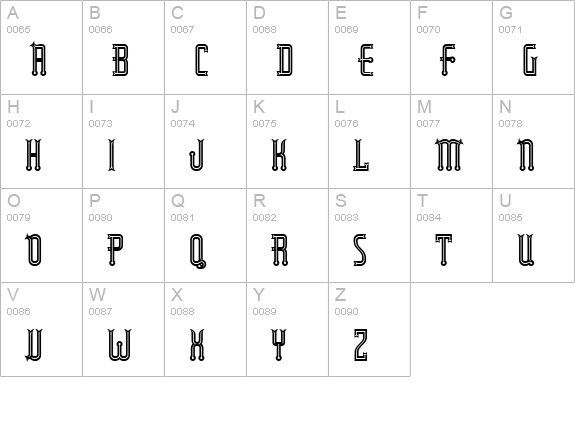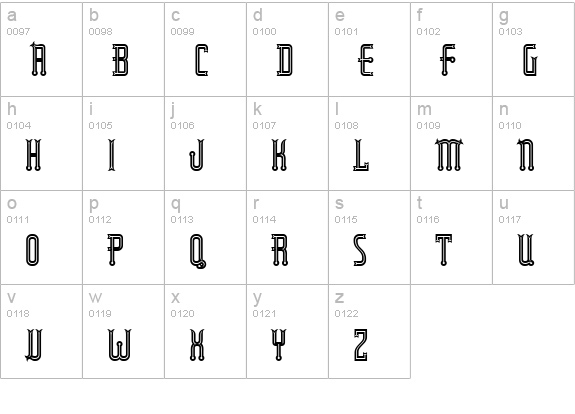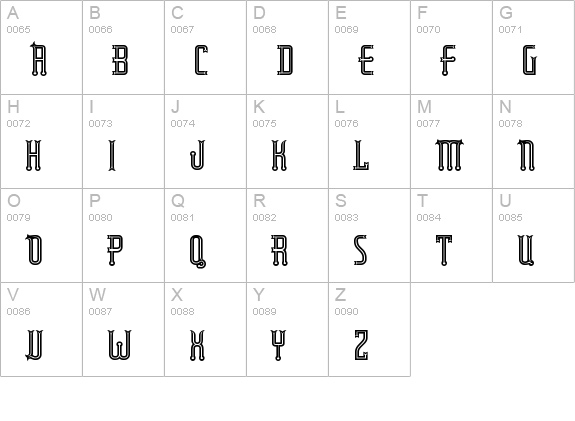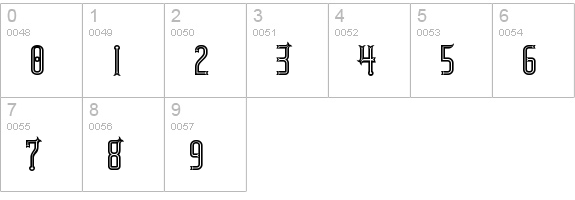
RubaiyatEngraved Font Details
RubaiyatEngraved font is a beautifully intricate and elegant typeface that exudes sophistication and charm. With its decorative engravings and intricate details, this font is perfect for adding a touch of luxury to your designs. The ornate flourishes and classic styling of RubaiyatEngraved make it a timeless choice for any project that requires a touch of elegance. And the best part? RubaiyatEngraved font is available for free download at FontsMarket.com! Whether you're working on a wedding invitation, a branding project, or any other design that calls for a touch of class, RubaiyatEngraved font is sure to elevate your work to the next level. Download it today and add a touch of luxury to your designs.